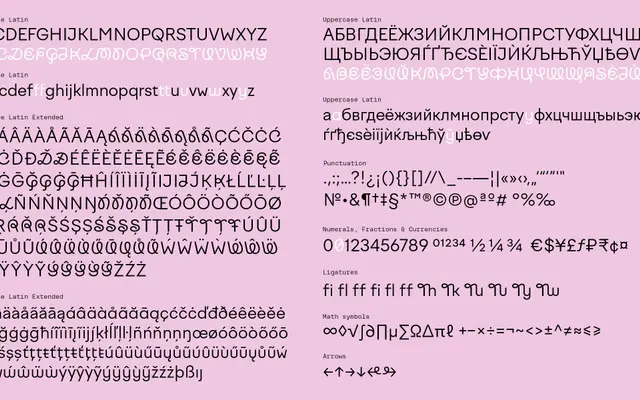
FactorA Variable specimen from Interval Type
A variable geometric sans from Interval Type spanning seven weights, four width grades and matching italics, with stylistic alternates including a rounded lowercase and a 'Funk It Up' character set.
The family runs across seven weights from Ultralight to Black, each paired with an italic, and four width variants numbered 35, 65 and 100 alongside the default. Stylistic alternates give designers the choice between neutral and expressive versions of the 'f' and 't', a rounded lowercase, a slashed zero and a more characterful 'Funk It Up' set. The variable format packages the full range into a single file, making it practical for responsive or multi-context work.
The family's clean, modular construction with optional rounded lowercase and stylistic alternates places it firmly in the geometric sans tradition, with a variable format spanning weight and width axes.